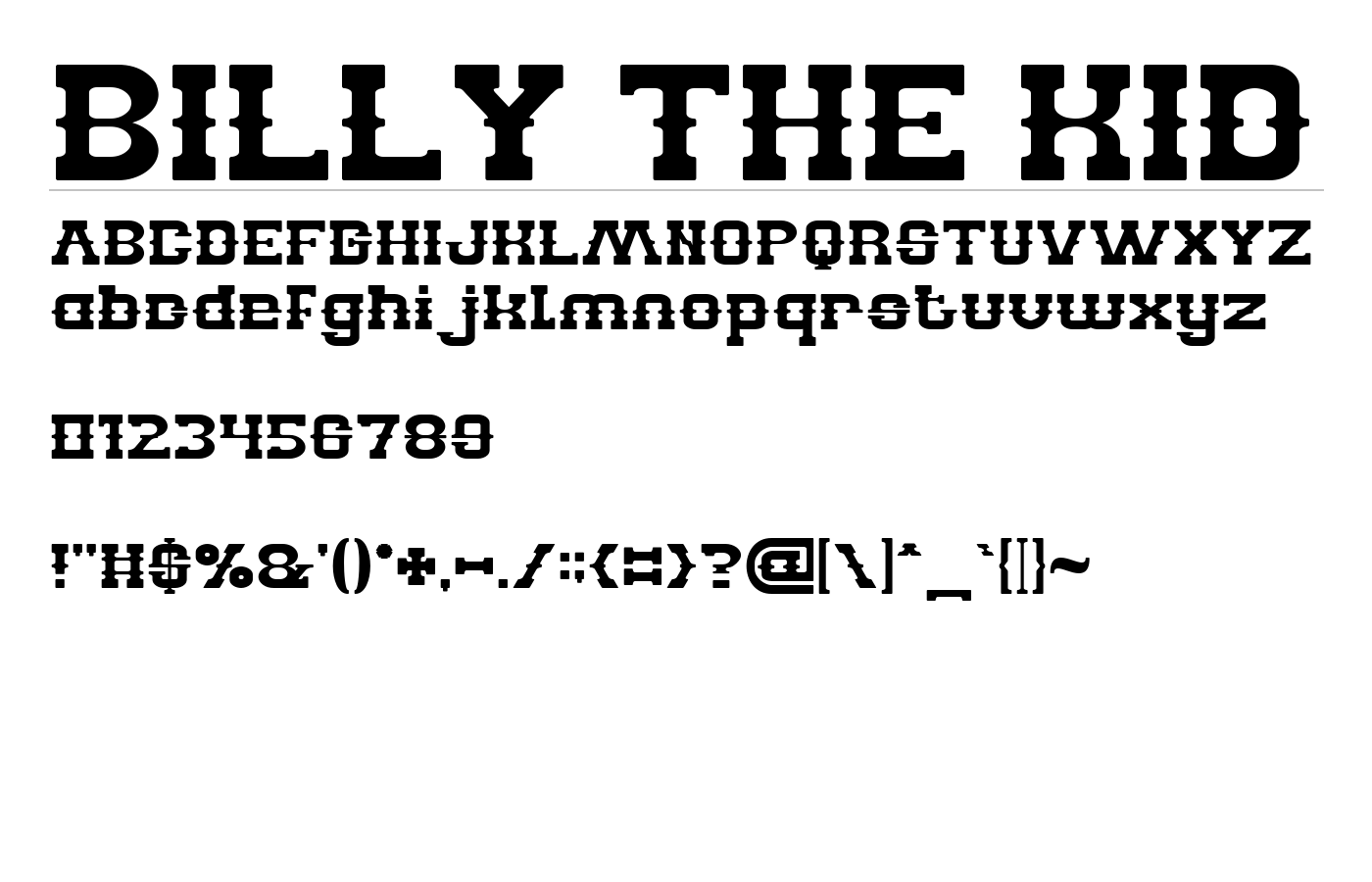
BILLY THE KID is a bold slab serif font with a strong, vintage Western vibe, characterized by its thick, blocky serifs and sturdy letterforms. Its high contrast stroke and compact width give it a rugged yet playful feel, making it ideal for Western-themed branding, posters, and headlines that need a touch of nostalgic toughness. This font works best in display contexts where a bold, eye-catching statement is desired.
BILLY THE KID Font
About BILLY THE KID Font